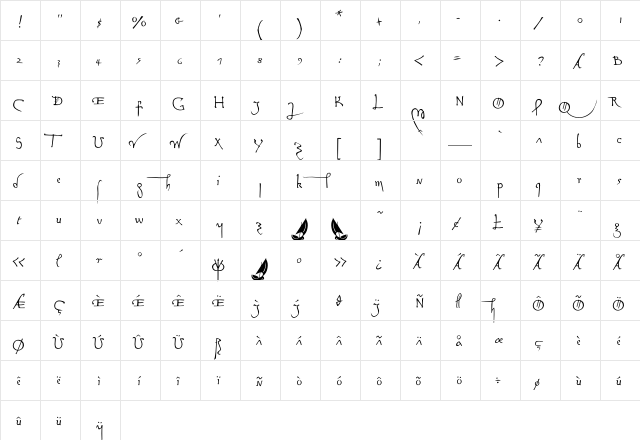
Leonardo Hand
| Style | Hand |
| Year | 1989 |
Design Context for Leonardo Typeface
Leonardo brings a calligraphic fluidity to the page — its connecting strokes and expressive curves give it an unmistakably human quality.
Font Pairing: Combine Leonardo with a simple geometric sans for maximum contrast — the tension between flowing curves and clean structure is a classic typographic pairing.
Pro Tip: Pair Leonardo with a clean sans-serif for supporting text. The contrast between fluid script and geometric structure creates an elegant typographic hierarchy.